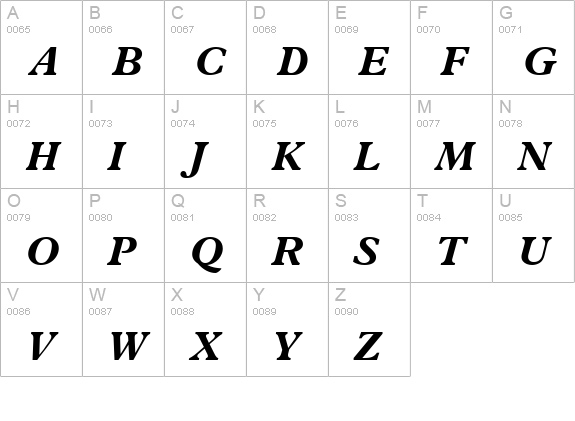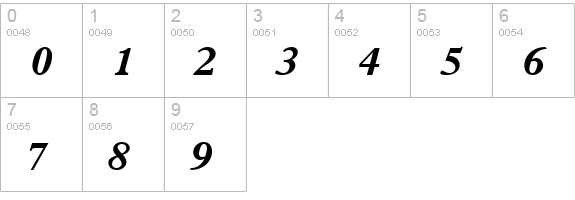
Terminus Black SSi Bold Italic Font Details
Terminus Black SSi Bold Italic is a maximum-weight, dramatic, italic variant in the Terminus typeface family \xE2\x80\x94 well suited to maximum-impact headlines, posters, and packaging.
Terminus Black SSi Bold Italic font is a bold and dynamic typeface that exudes a sense of confidence and authority. Its strong, thick strokes and slanted, italicized design make a bold statement, perfect for attention-grabbing headlines and impactful designs. This font is not only visually striking but also incredibly versatile, with its bold weight and italicized style adding a touch of sophistication to any project. Whether it's used in advertising, branding, or editorial design, Terminus Black SSi Bold Italic font commands attention and leaves a lasting impression. What makes this font even more remarkable is that it is freely available to download at FontsMarket.com. This means that designers and creatives alike can access this exceptional typeface without any cost, making it an ideal choice for those on a budget or looking to experiment with different fonts. Terminus Black SSi Bold Italic font is a powerful and expressive typeface that is sure to elevate any design it is used in. With its bold weight and italicized style, it adds a touch of elegance and impact to any project. And the fact that it is freely available to download at FontsMarket.com makes it an even more attractive choice for designers and creatives. So why wait? Download Terminus Black SSi Bold Italic font today and unleash its potential in your next design endeavor.